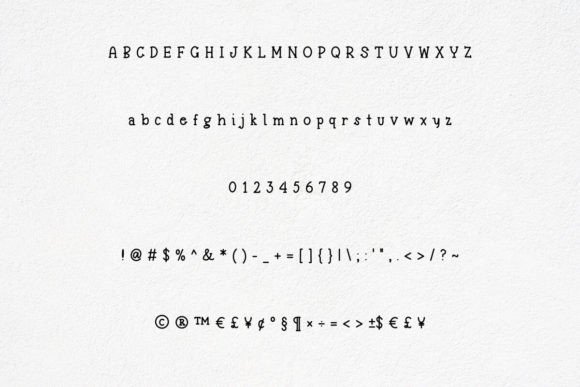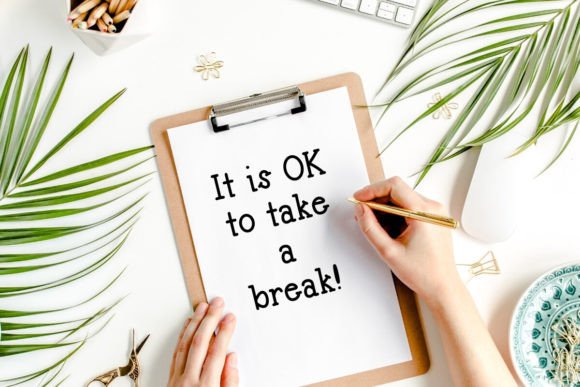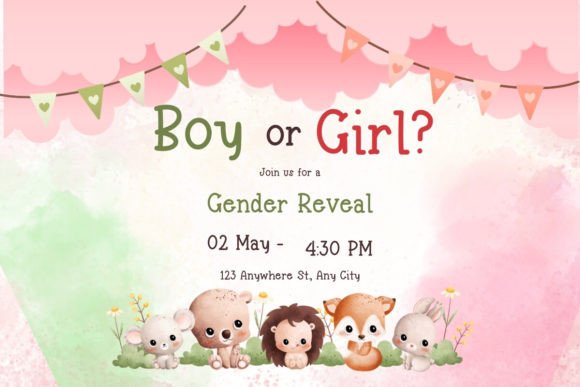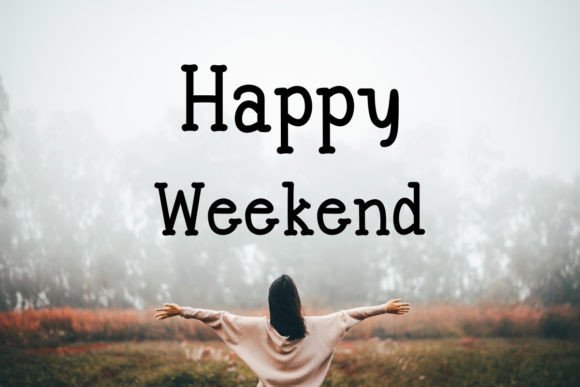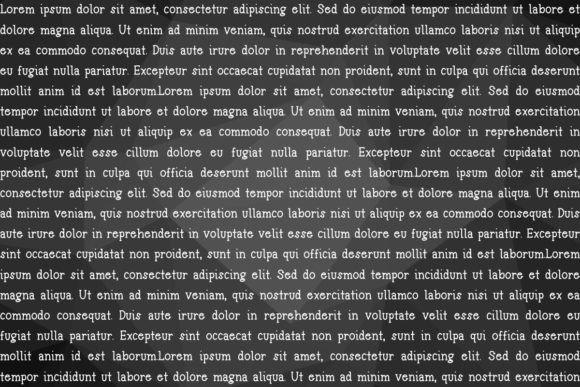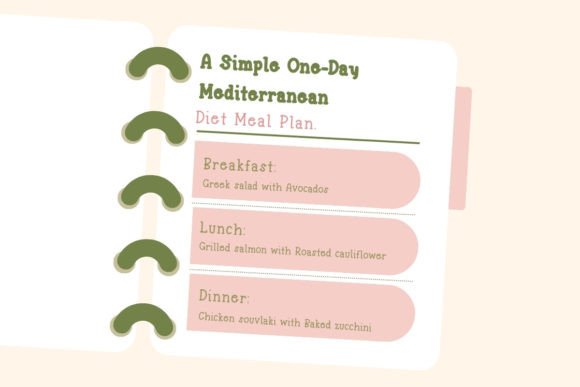
Introduction to Khaotang Font
KhaoTang is a sophisticated and timeless serif font designed to add elegance and clarity to your projects.
Ideal for invitations, social media graphics, note-taking, and more, this versatile font is easy to read and perfect for both print and digital applications Its refined appearance makes it suitable for crafting, childrenโs books, event invitations, branding, and journaling.
Khaotang Font offers exceptional quality and versatility, making it a valuable addition to your design toolkit. Whether you’re creating for personal projects or commercial use, Khaotang Font delivers professional results.